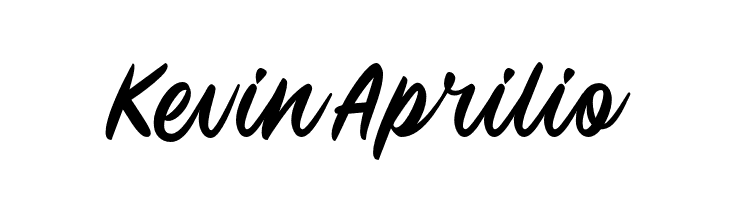
A whimsical, hand-drawn font with playful numerals and expressive special characters.
A bold, modern font with a unique blend of traditional and contemporary styles.
A dynamic, italic handwritten font with artistic flair.
A bold, italicized font with dynamic curves and a playful style.
A playful, informal handwritten font with rounded, consistent strokes.
A whimsical script font with elegant swashes and flowing connections.
A whimsical handwritten font with elegant swirls and flowing lines.
A hand-drawn, sketch-like font with playful and informal characteristics.
A bold, cartoonish font with thick, rounded edges and a playful style.
A modern, cursive script font with a smooth, flowing style.